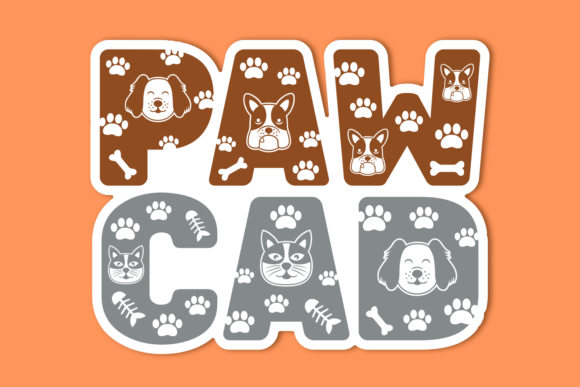
Paw Cad Font: The Purrfect Typeface for Cat and Dog Lovers
Are you a cat or dog lover looking for a unique and fun font to add a personal touch to your pet-inspired crafts, gifts, and designs? Look no further than Paw Cad Font! This adorable typeface features design elements of beloved furry friends in each glyph, making it the perfect addition to any project that celebrates the joy of pets.
What is Paw Cad Font?
Paw Cad Font is a fun and creative typeface that incorporates design elements of cats and dogs into each glyph. The font is designed to be playful and eye-catching, making it perfect for a variety of projects, from pet-themed crafts and gifts to social media graphics and blog posts.
Each letter and symbol in the Paw Cad Font is carefully crafted to include elements of our furry friends, such as paws, bones, and tails. The result is a font that is both fun and functional, adding a touch of personality to any project.
Uses for Paw Cad Font
Paw Cad Font is a versatile typeface that can be used in a variety of projects, including:
- Pet-themed crafts, such as party invitations, gift tags, and DIY decorations
- Pet-inspired gifts, such as customized mugs, t-shirts, and tote bags
- Social media graphics and blog posts about pets and animal-related topics
- Pet business branding, such as logos, business cards, and website headers
- Fun and creative projects, such as scrapbooking and card making
Benefits of Using Paw Cad Font
There are many benefits to using Paw Cad Font in your projects, including:
- Unique and eye-catching design: The Paw Cad Font is sure to grab attention and add a touch of personality to any project.
- Versatile: The font can be used in a variety of projects, from digital to print.
- Fun and playful: The font is perfect for projects that require a lighthearted and playful touch.
Tips for Using Paw Cad Font
Here are a few tips for using Paw Cad Font in your projects:
- Use it sparingly: While the Paw Cad Font is fun and playful, it can be overwhelming if used too much. Use it sparingly to add a touch of personality to your project.
- Pair it with a simple font: Pair the Paw Cad Font with a simple font to create contrast and add visual interest to your project.
- Experiment with colors: The Paw Cad Font looks great in a variety of colors, so don’t be afraid to experiment and find the perfect color scheme for your project.
Paw Cad Font is a fun and creative typeface that is perfect for cat and dog lovers. With its unique and eye-catching design, ease of use, and versatility, it’s the perfect addition to any project that celebrates the joy of pets. Whether you’re a designer, crafty person, or simply a pet lover, Paw Cad Font is sure to bring a smile to your face and add a touch of personality to your projects.